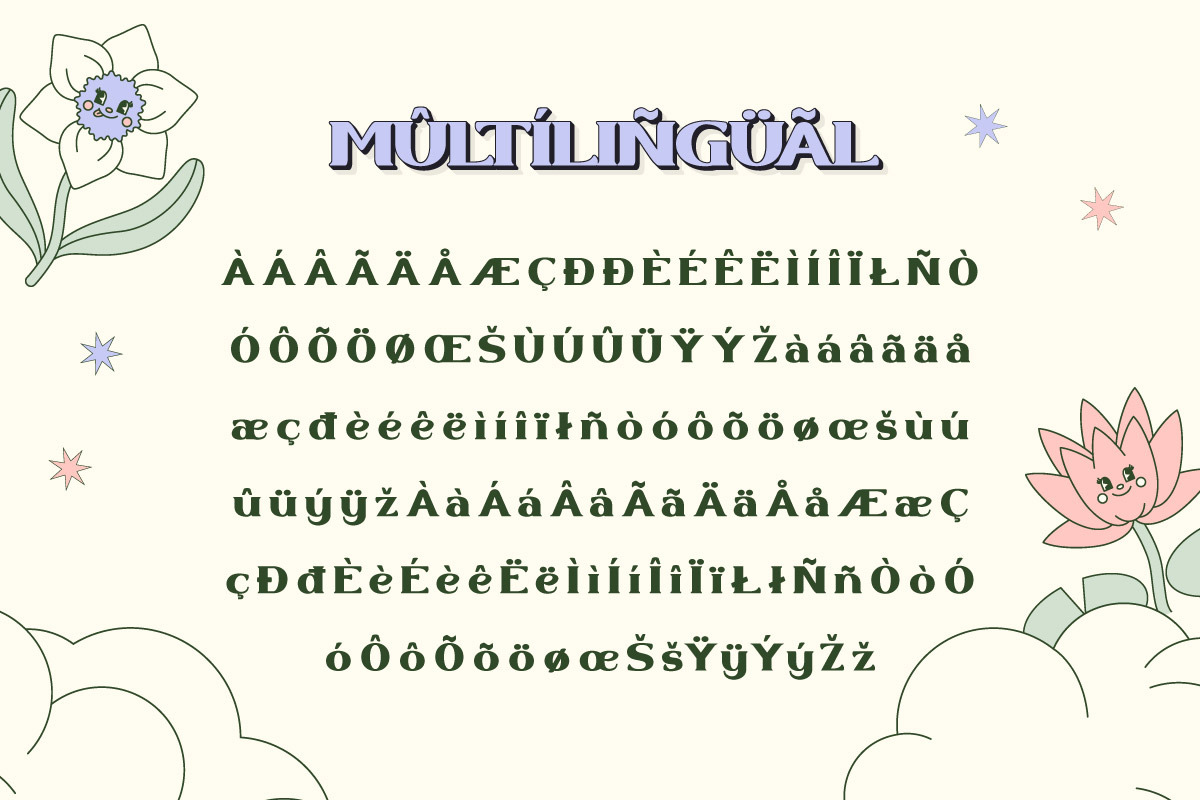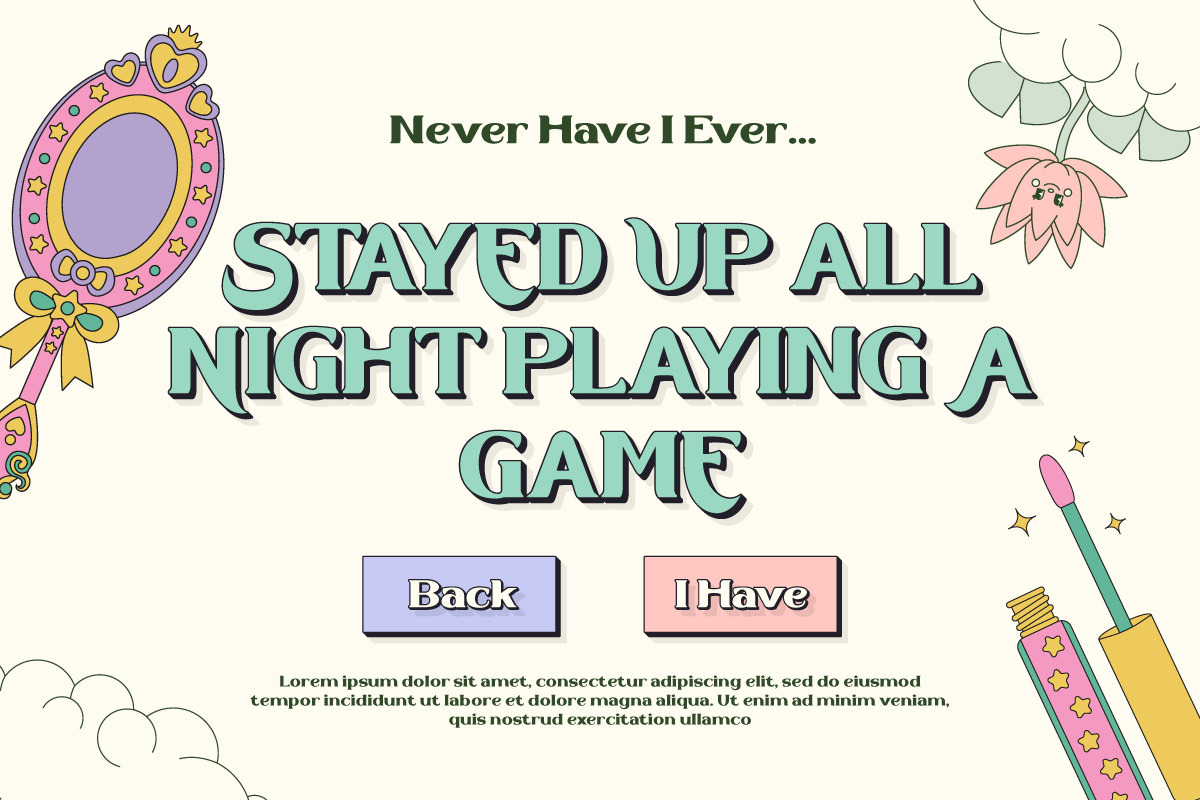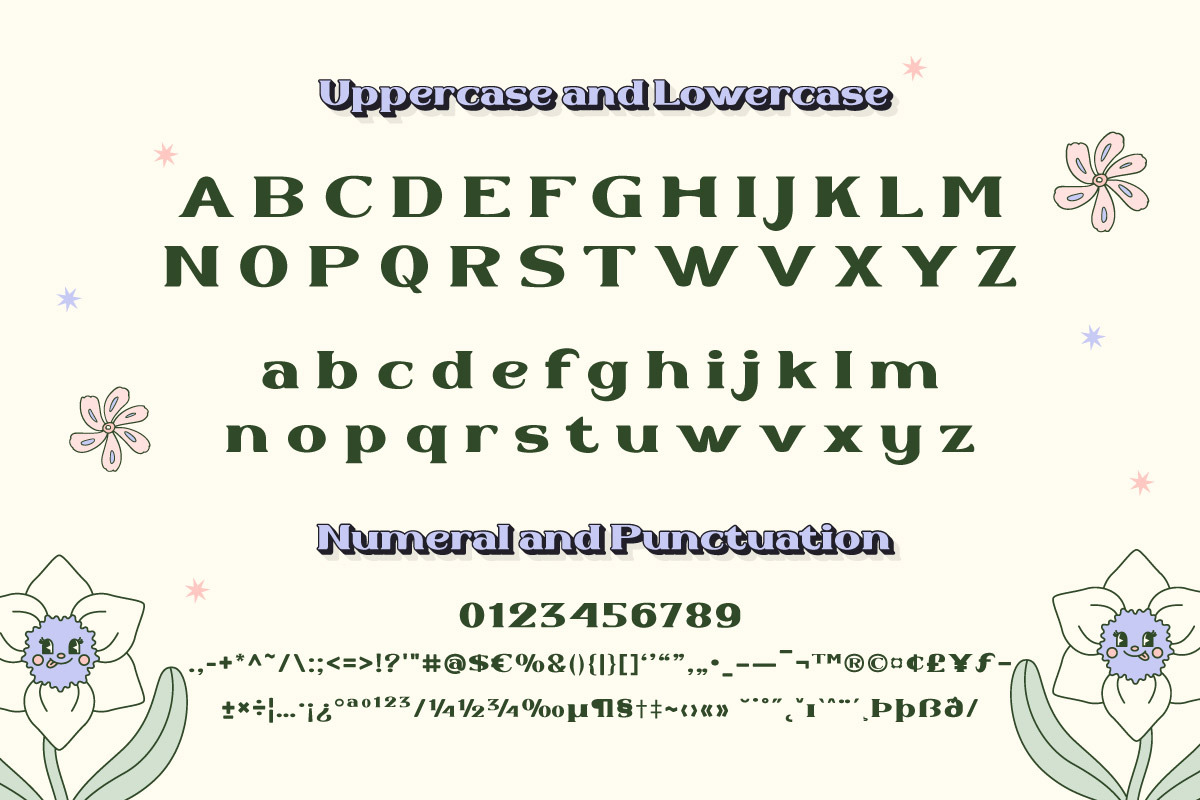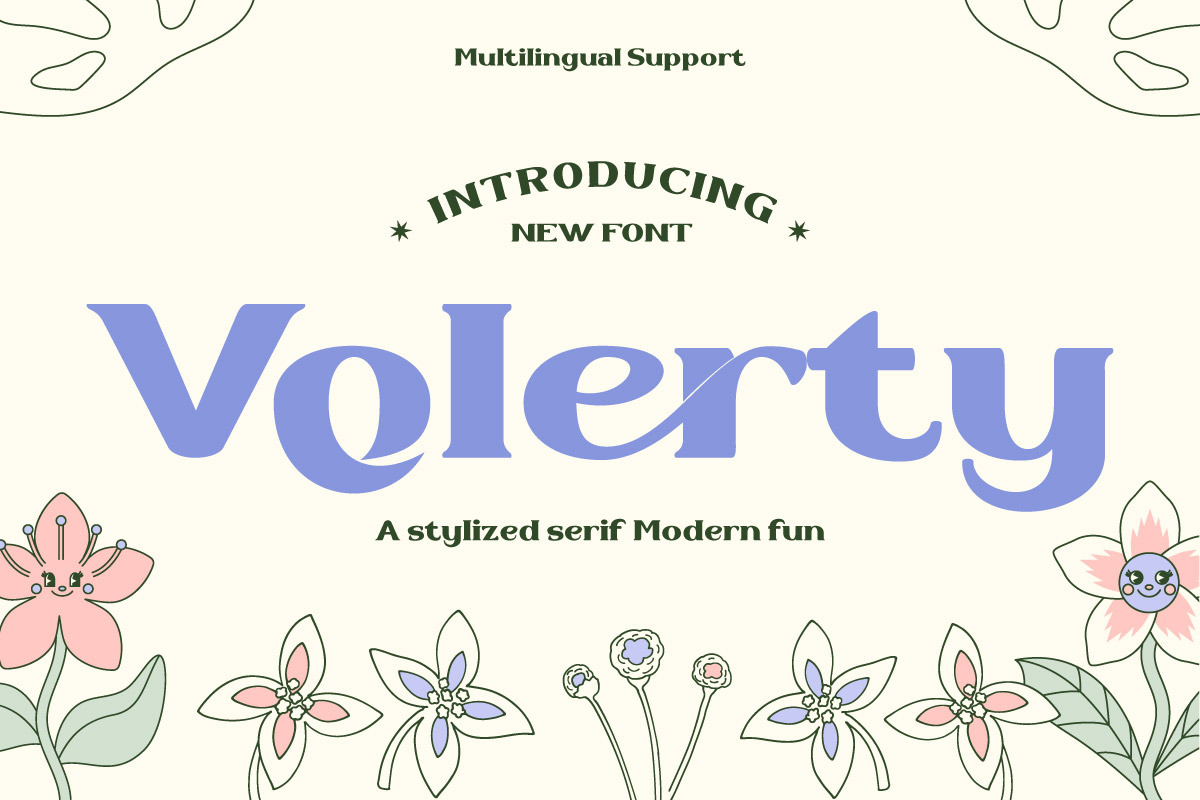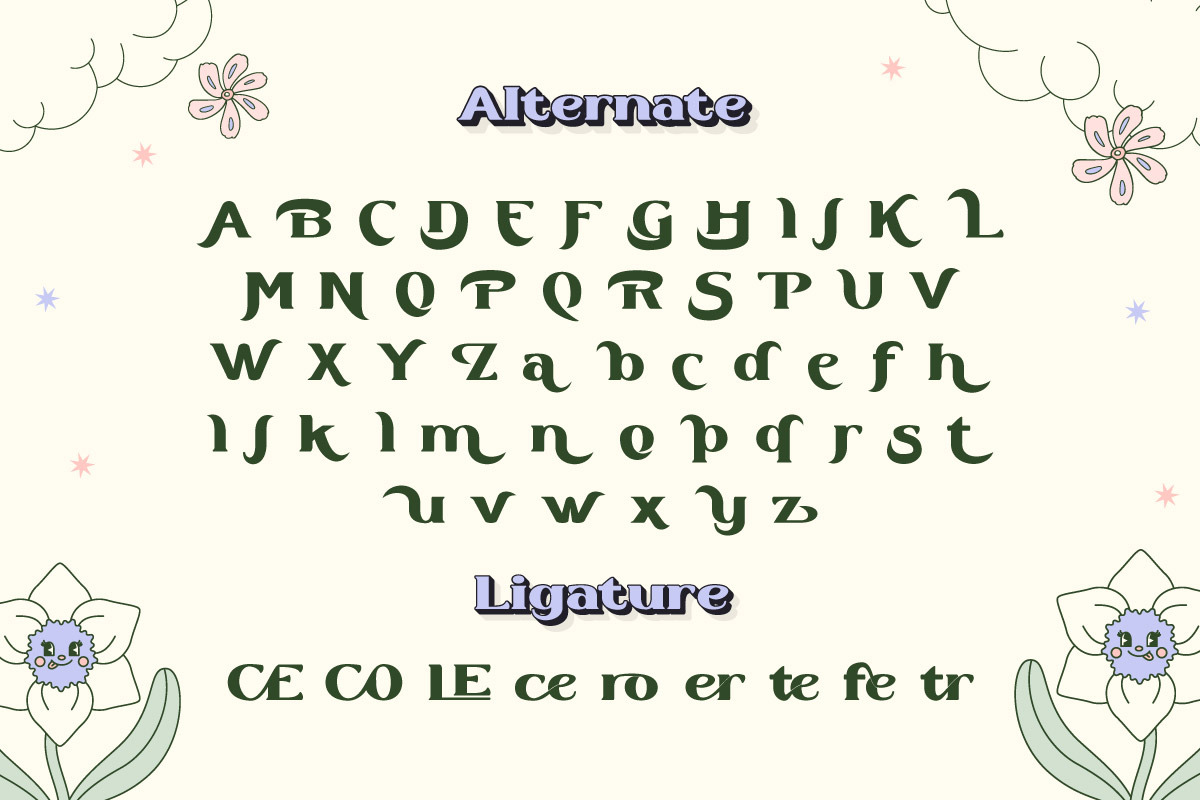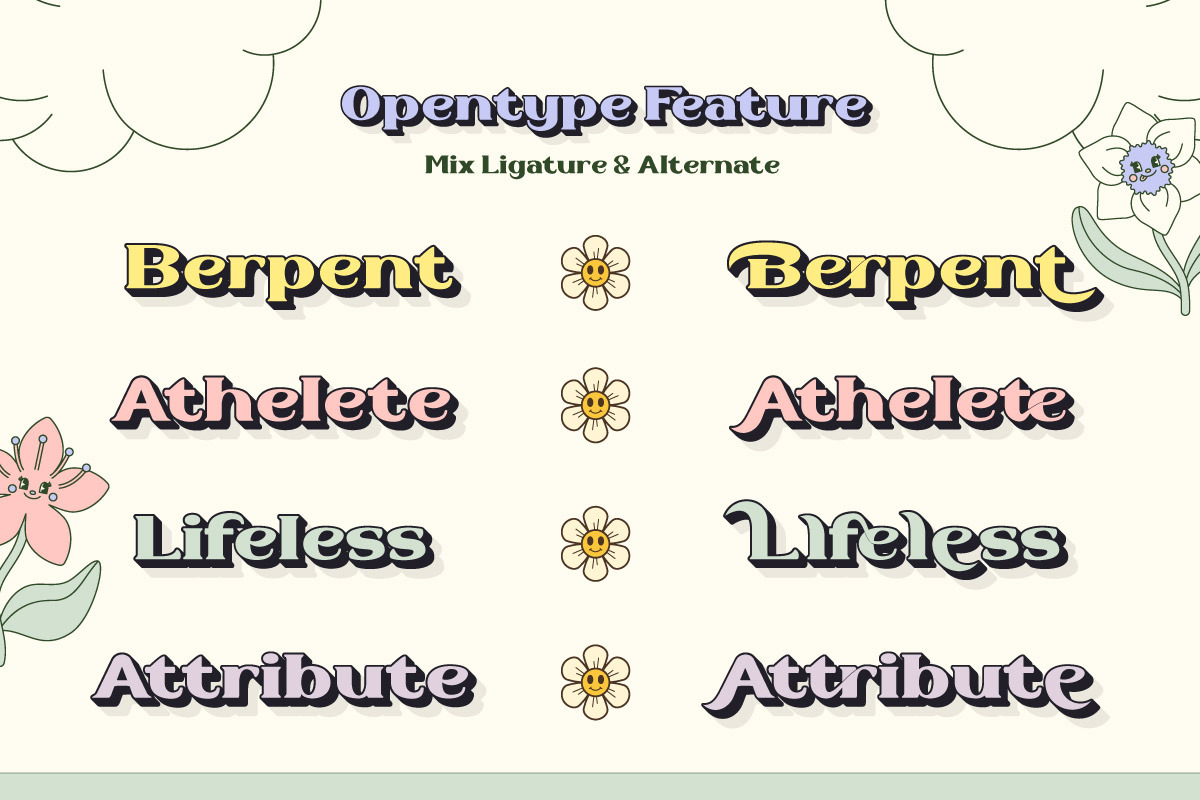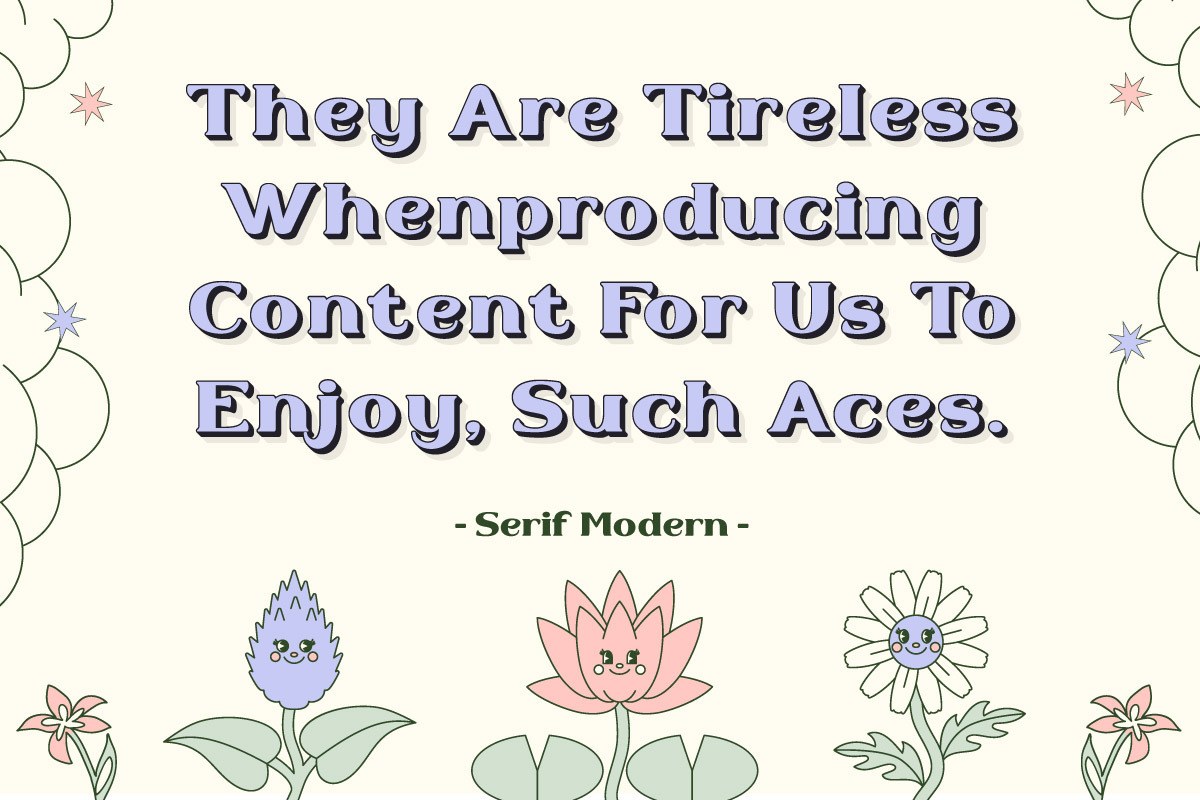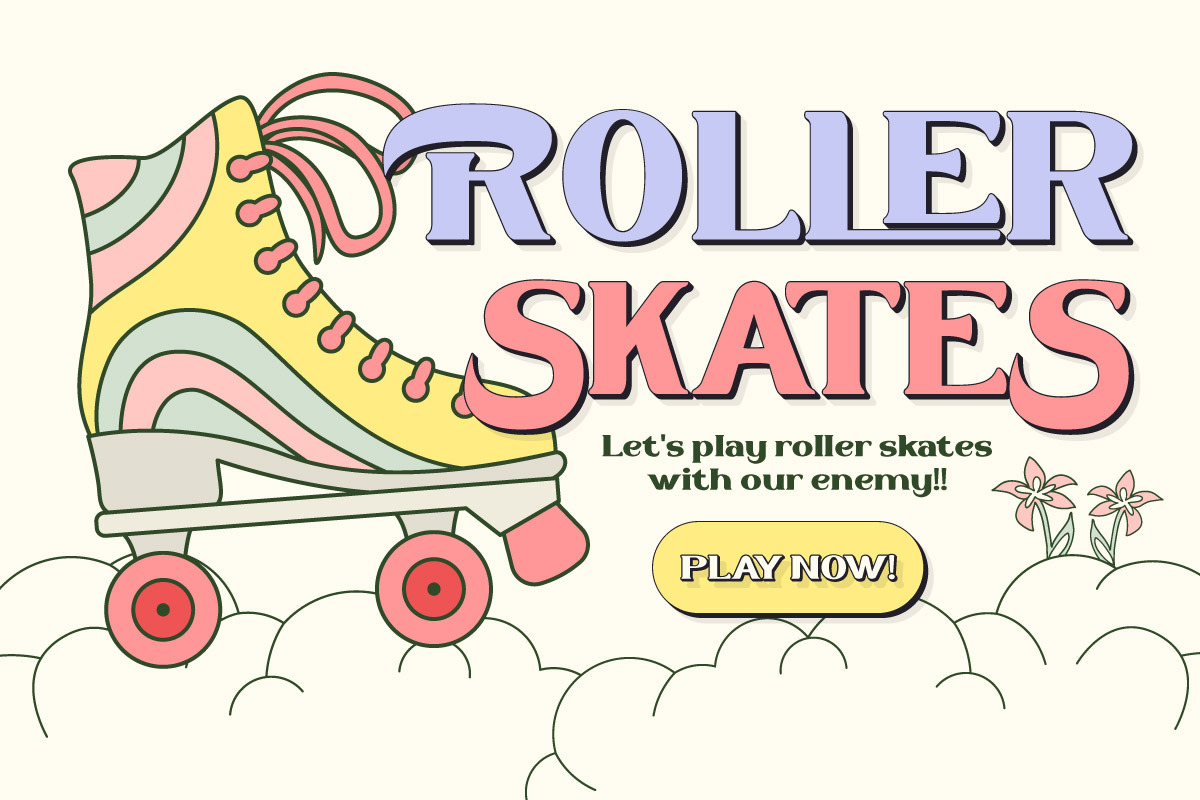
Volerty - Serif Display Font
Volerty is a font that speaks volumes. This serif display font combines classic style with modern design, creating a look that is both timeless and contemporary. Its elegant serifs and balanced characters make it a versatile choice for a wide range of designs, from sophisticated logos to compelling headlines. With Volerty, your designs will always make an impression.